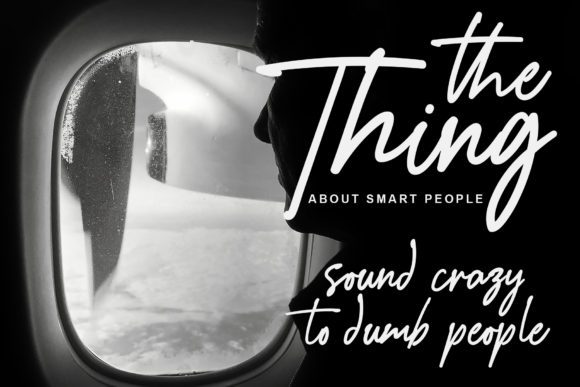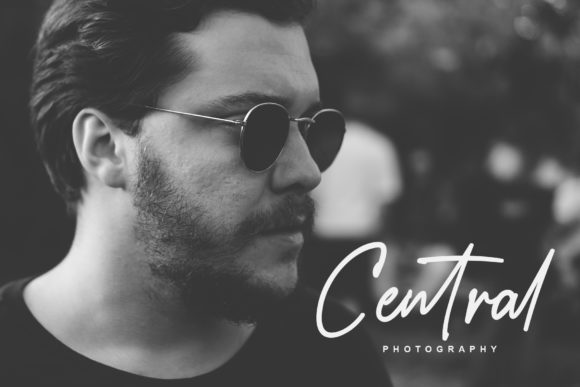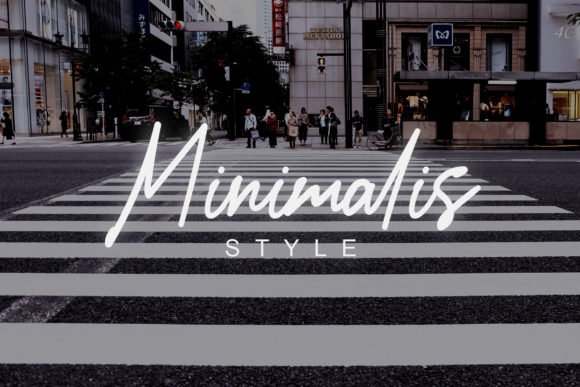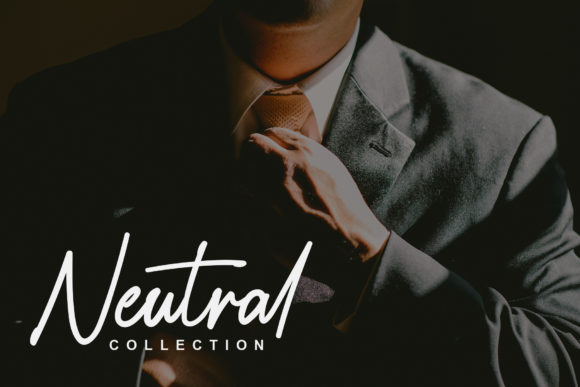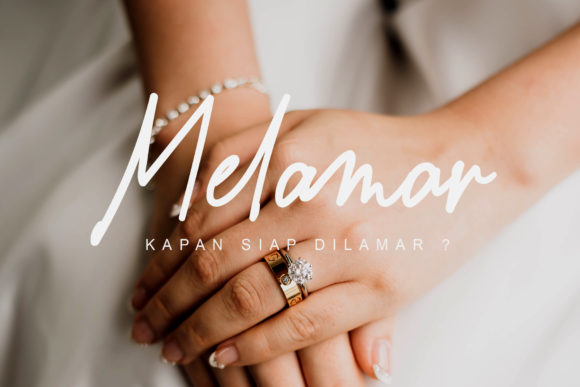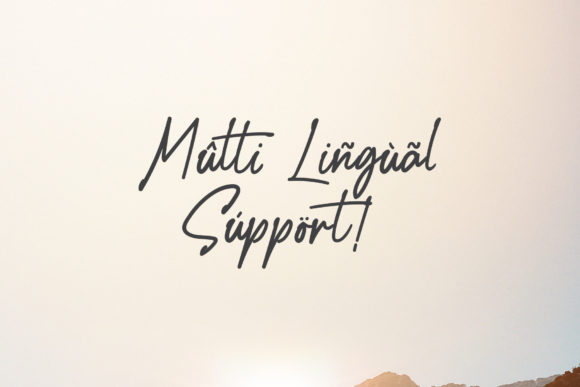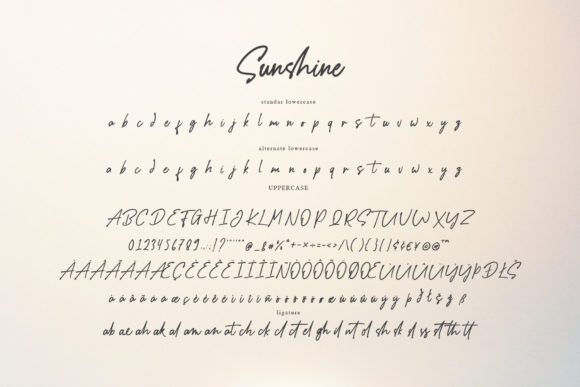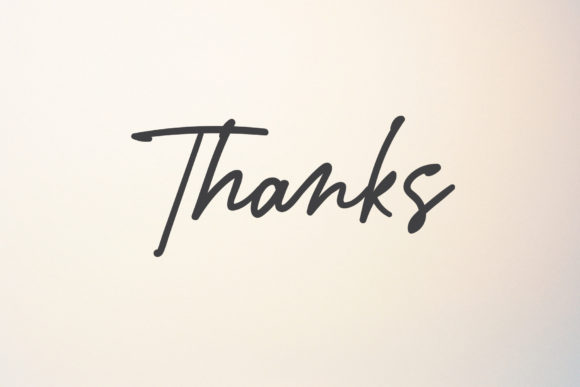
Sunshine Font
About Sunshine Font
The Sunshine is an amazing handwritten font. It has a simple, yet classy style and that is perfect for adding a striking look to your watermarks, signatures, logos, albums, business cards, and much more!